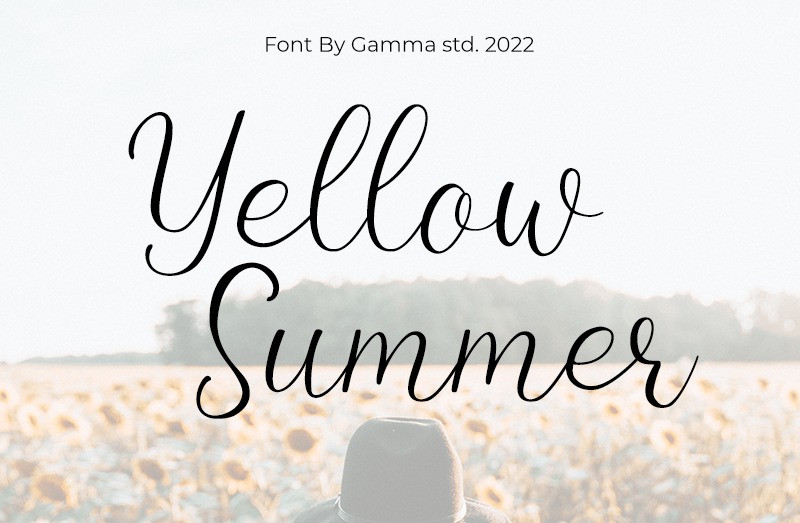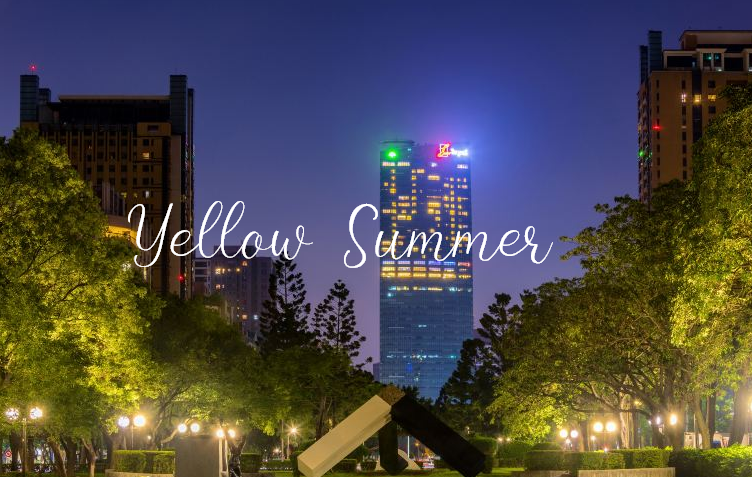
Yellow Summer Font
Yellow Summer Font, A luxury script that has its own unique style & modern look. This typeface is perfect for an elegant & luxury logo, book or movie title design, fashion brand, magazine, clothes, lettering, quotes, and so much more.